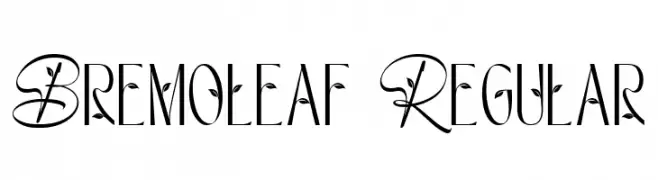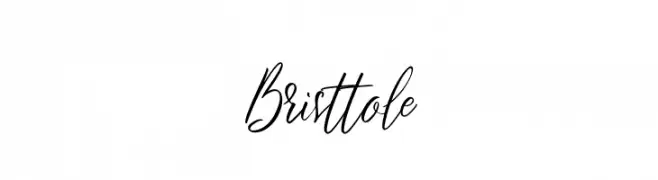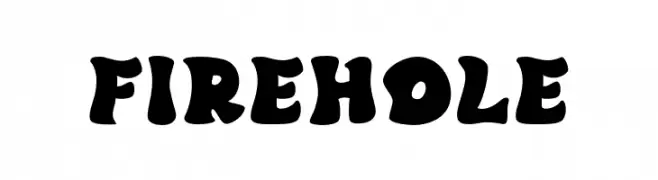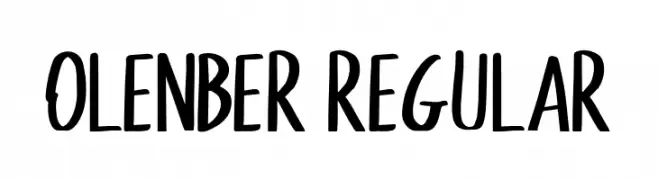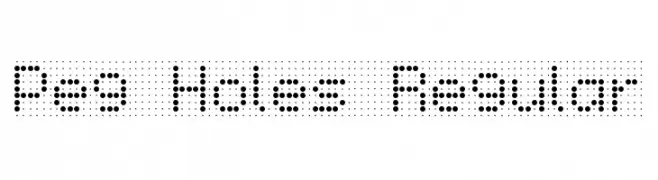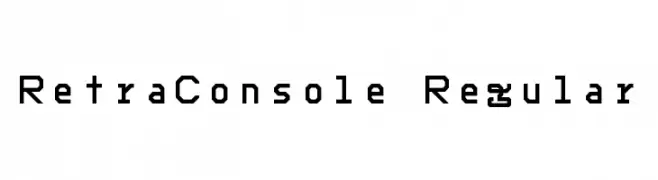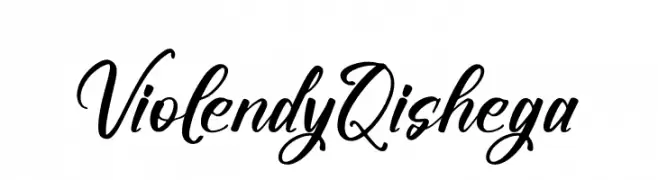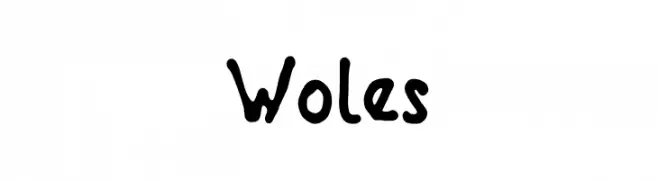
A dot-based font with a pegboard aesthetic, offering a modern and playful look.
A bold, playful font with thick, rounded strokes and whimsical curves.
A playful, hand-drawn font with tall, narrow letters and a casual vibe.
An elegant, nature-inspired font with decorative leaf accents.
A fluid, cursive font with a handwritten, elegant style.
A bold, dynamic brush script font with expressive strokes and a hand-painted appearance.
An elegant, flowing script font with a natural handwritten style.
A geometric, monospaced font with a retro digital display style.
Casual handwritten font.
Elegant handwritten script font.